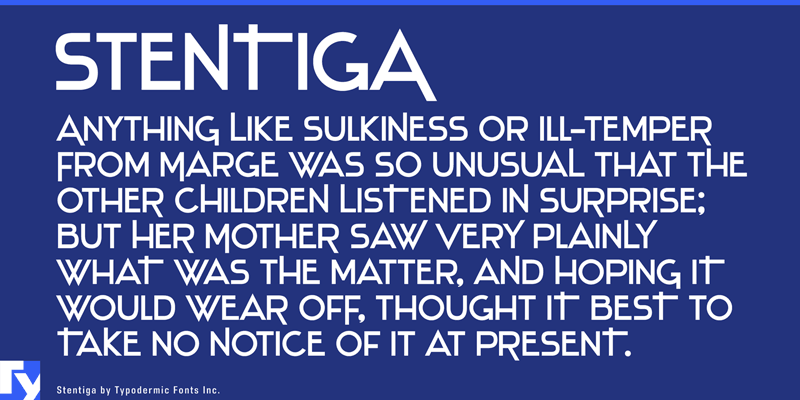
Stentiga is an unostentatious, geometric headline font. Try the OpenType stylistic alternates. This font includes a license that allows free commercial use: sometimes referred to as a desktop license. This allows you to install the font on a computer and use it to create posters, web graphics, game graphics, t-shirts, videos, signs, logos and more. Read the license agreement for details. If you'd like to embed this font in an app, ebook, on the web or anything that's not covered by the desktop license agreement, visit the link below. You'll find distributors who offer different types of licenses or you can contact me for help. http://typodermicfonts.com/stentiga/ |